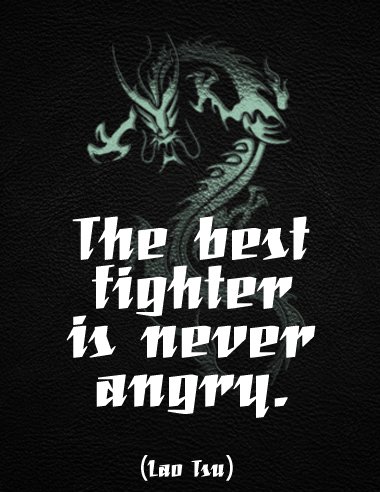
• +++work in progress+++ The hardest one was "z" until i saw theres a cool solution made out of "a" :D However this in NOT inspired by 60ies, i was more thinking about Tattoo Art, or some kind of a slashing Samurai thingy... Thats maybe why i changed the name from "Dark Matter" to "Dark Shogun"
Very wow! Very promising! Very 60s!
I can imagine the z is hard but have you tried doing it with descender? This might fit to the rest. You know like a blackletter z.
Looking forward to seeing the uppercase.
A very effective lowercase - can't wait to see what you do with the UC.
WOW! This is gonna be a winner. Great balance and style. There are some really brilliant shapes, and it's got usability stamped all over it. 10/10
I'm with the guys. BTW, you could joint the right arms of v and w in an only piece with the rest of the glyph. About the z, I send you another point of view to make it.
Lower case is looking very good! Excellent suggestion for z.
Hey Folks! Thank you so far, i'm on it :) Thank you elmo as well, but i dont think your suggestion works for me. It's quite good but i think, but it's not close enough to the "rules" of the font. As you can see in e.g. "i", i'm trying to give the FS a feel of being drawn by a quill or pen with the form of a diacritical mark called Acute accent. Your design kind of "doubles" the stroke at the ends of "z"... I did some exeptional changes from the "rules" in "a" and "z", but that was only cause it looked so cool :) i think i will stay to this "z"...for now. My new sorrow is "x" :P
Yay. I just found out you dont need a ligature for "tt"... just take "H" :D
Plus: I changed "v" and "w". The older versions are still cool, so i keep em anywhere in the font. "t"'s stroke fitted to "H"
OK, compañero. Please, look at some lost brick on C and c.
Nicht schlecht Herr Specht !
[Not bad : )] I love it. I'm looking forward to the rest.
Congratulations on the top pick. I really like it, though I would opt for elmoyenique's z. 10/10 + fav, nevertheless.
Really cool. E/F/J are quite unusual though.
Well done so far! It looks as if it could have been made by Blambot. Please finish the Basic Latin range!
Amazing! Love the design, looks like it was made on a different editor!
Very graffiti; very cool. You are an artist.
Okay... it's done. i still can't believe, but it's done :)